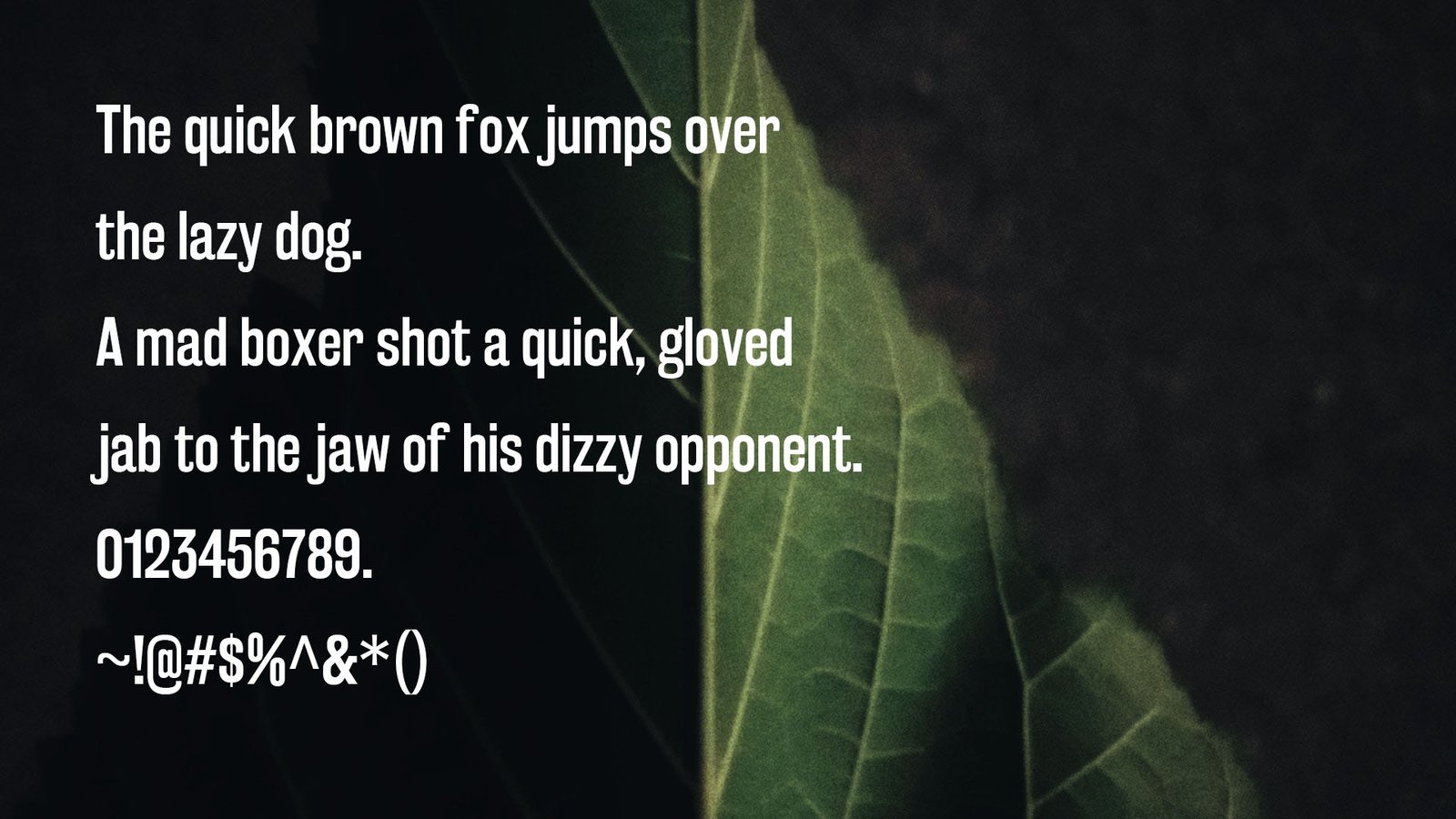
Today we are going to present the very stylish typeface that is known as Rakesly Font. This font is designed by Ray Larabie. This typeface is a member of the sans serif font family. This font is published under the banner of the typodermic. The released year of this font is 2014.
This font arrives in Regular, Italic, Light, Book, Bold, ultra, and each weight has its matching Italics.
Rakesly Font Family
This font family has contained 319 glyphs and 392 impressive bold characters that are All Case Letters, Basic Punctuations, Numerals, Currency symbols, Letters like Symbols, and many unique characters.